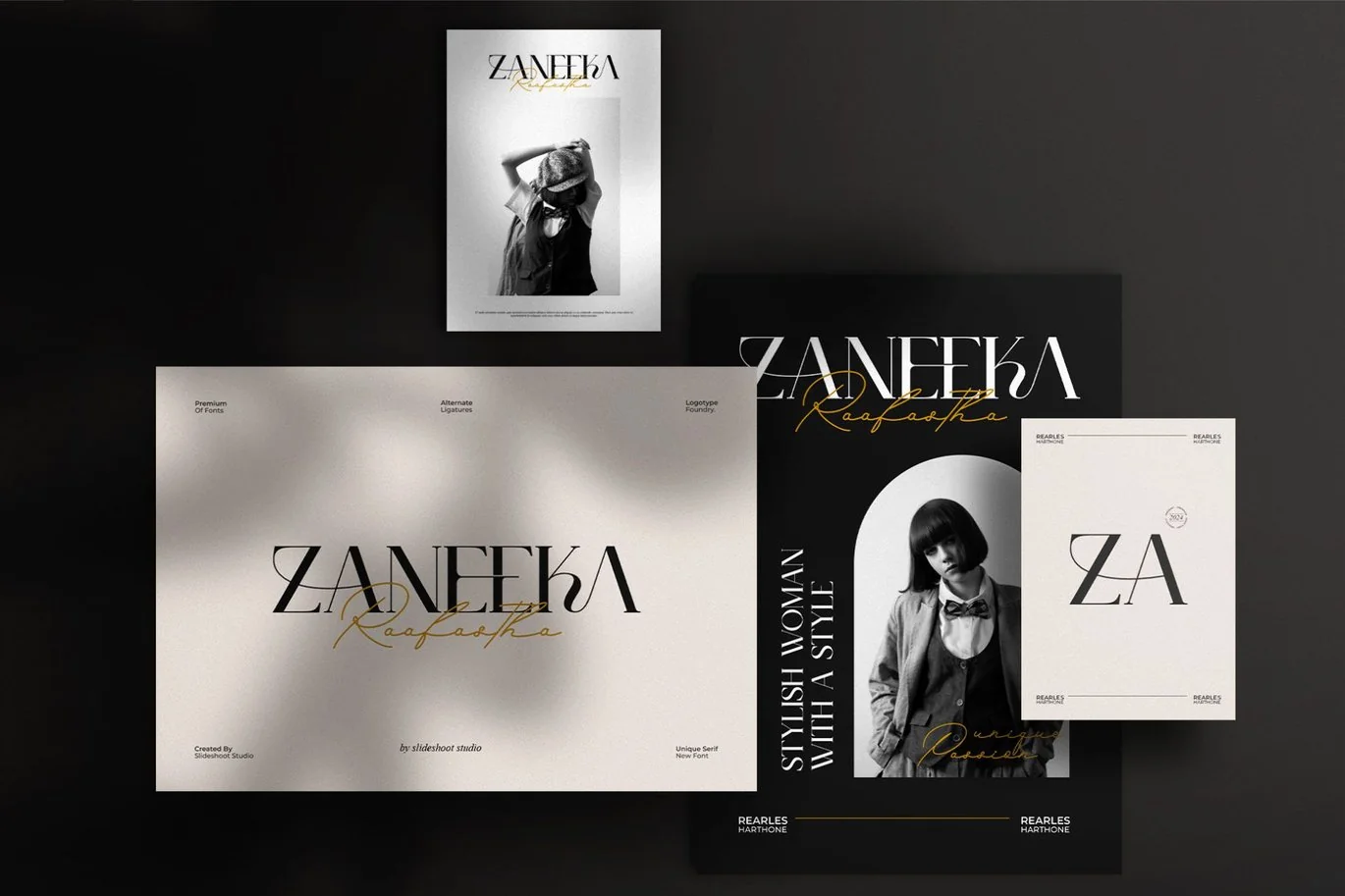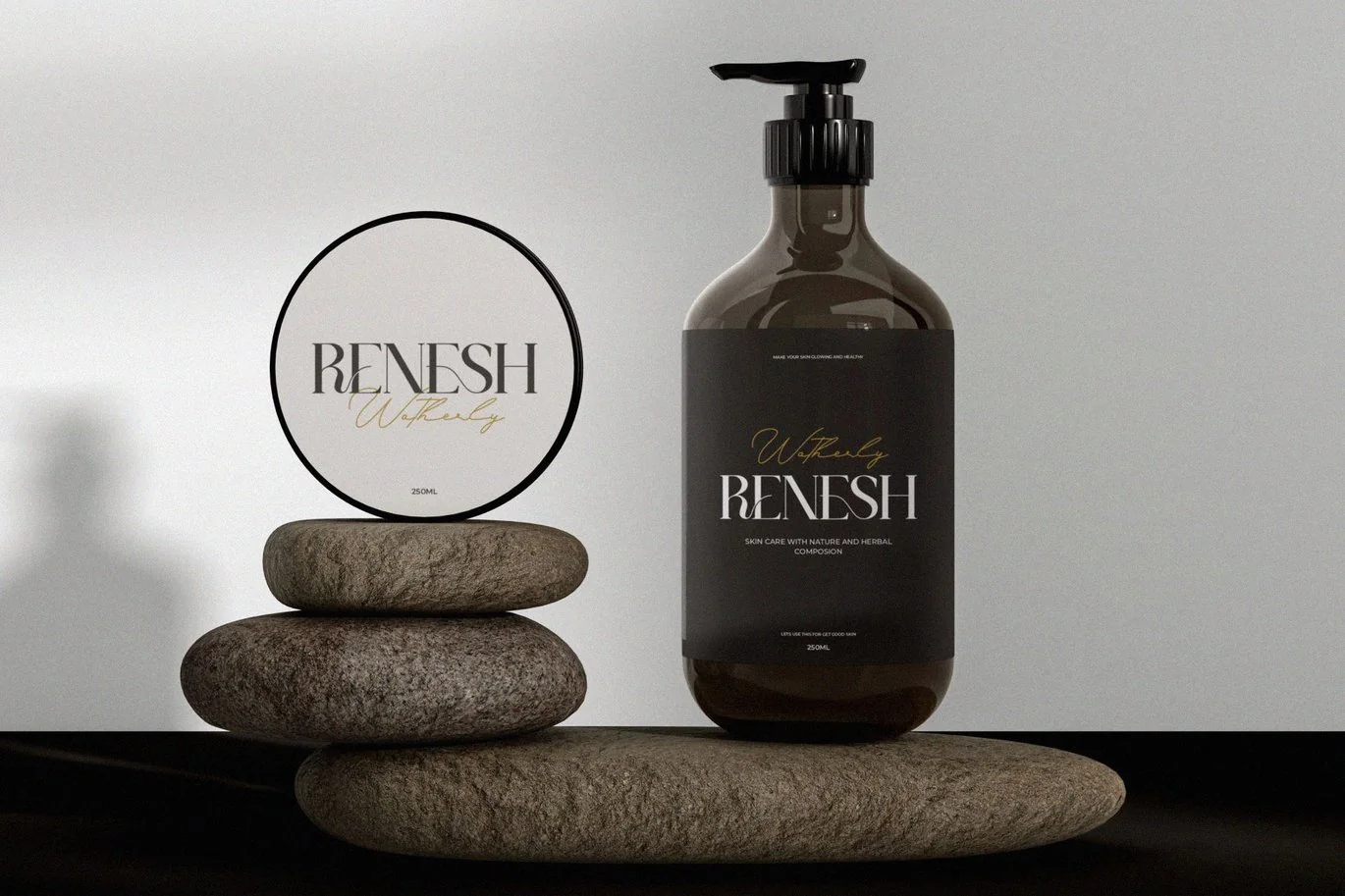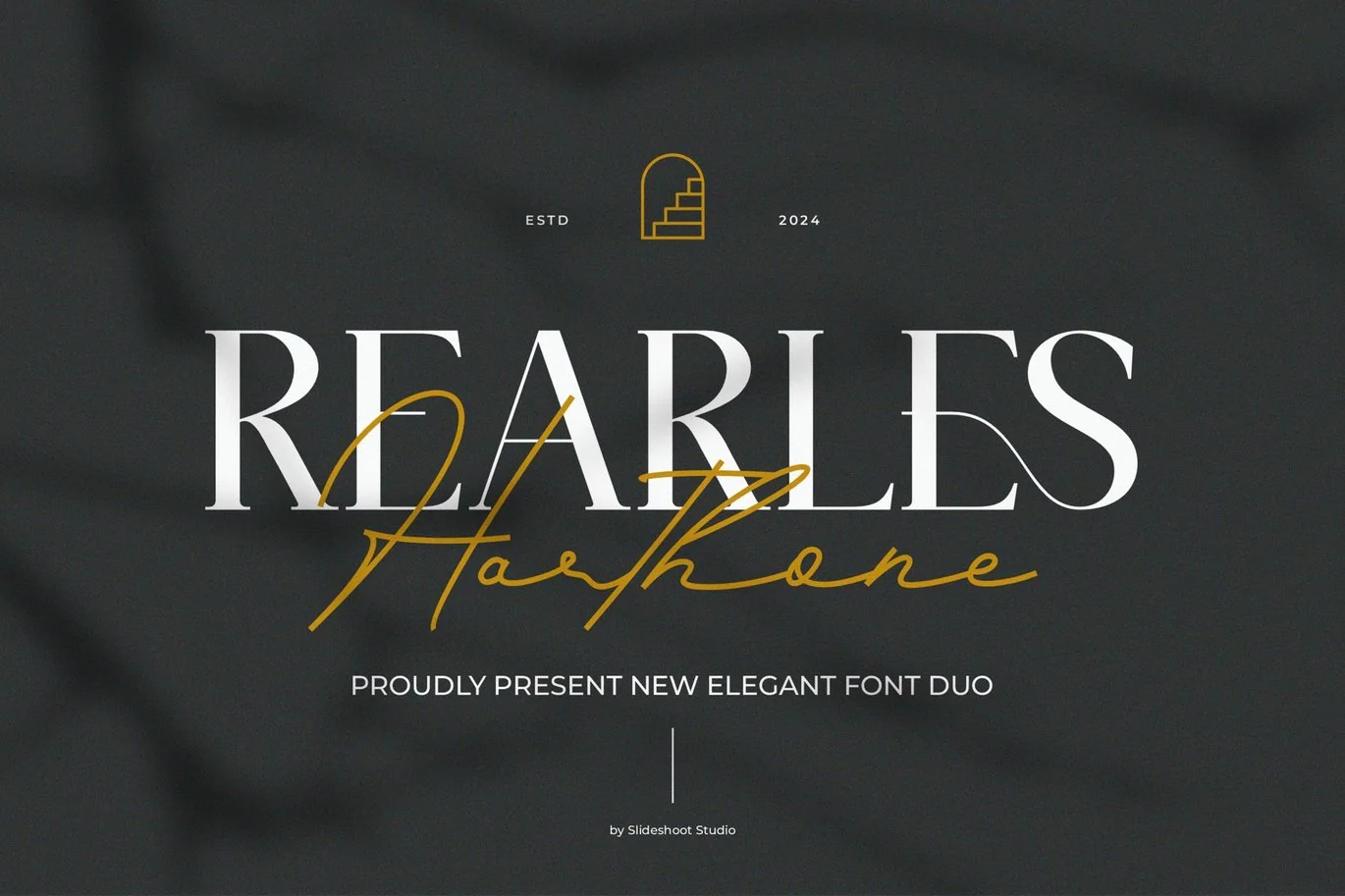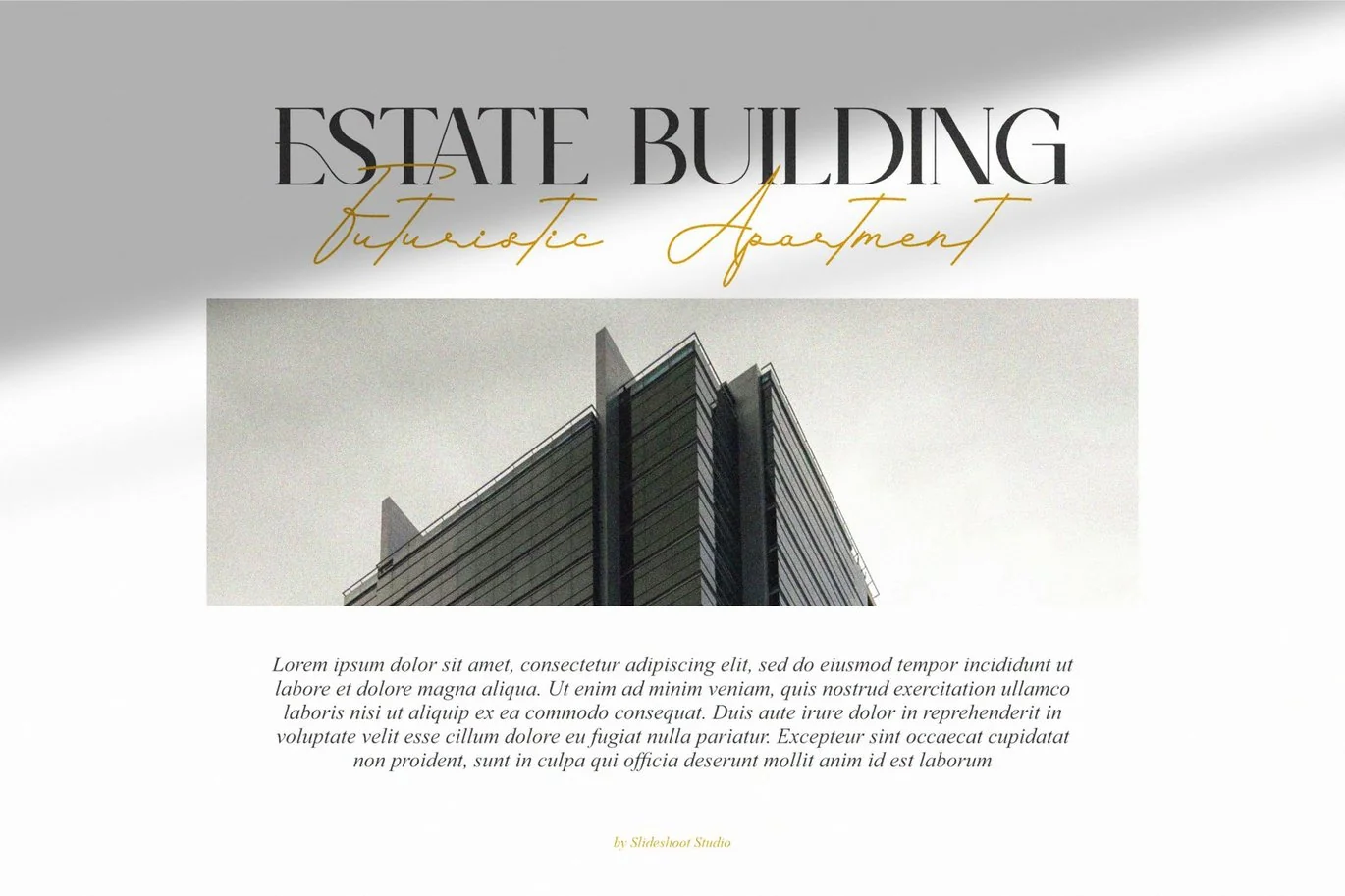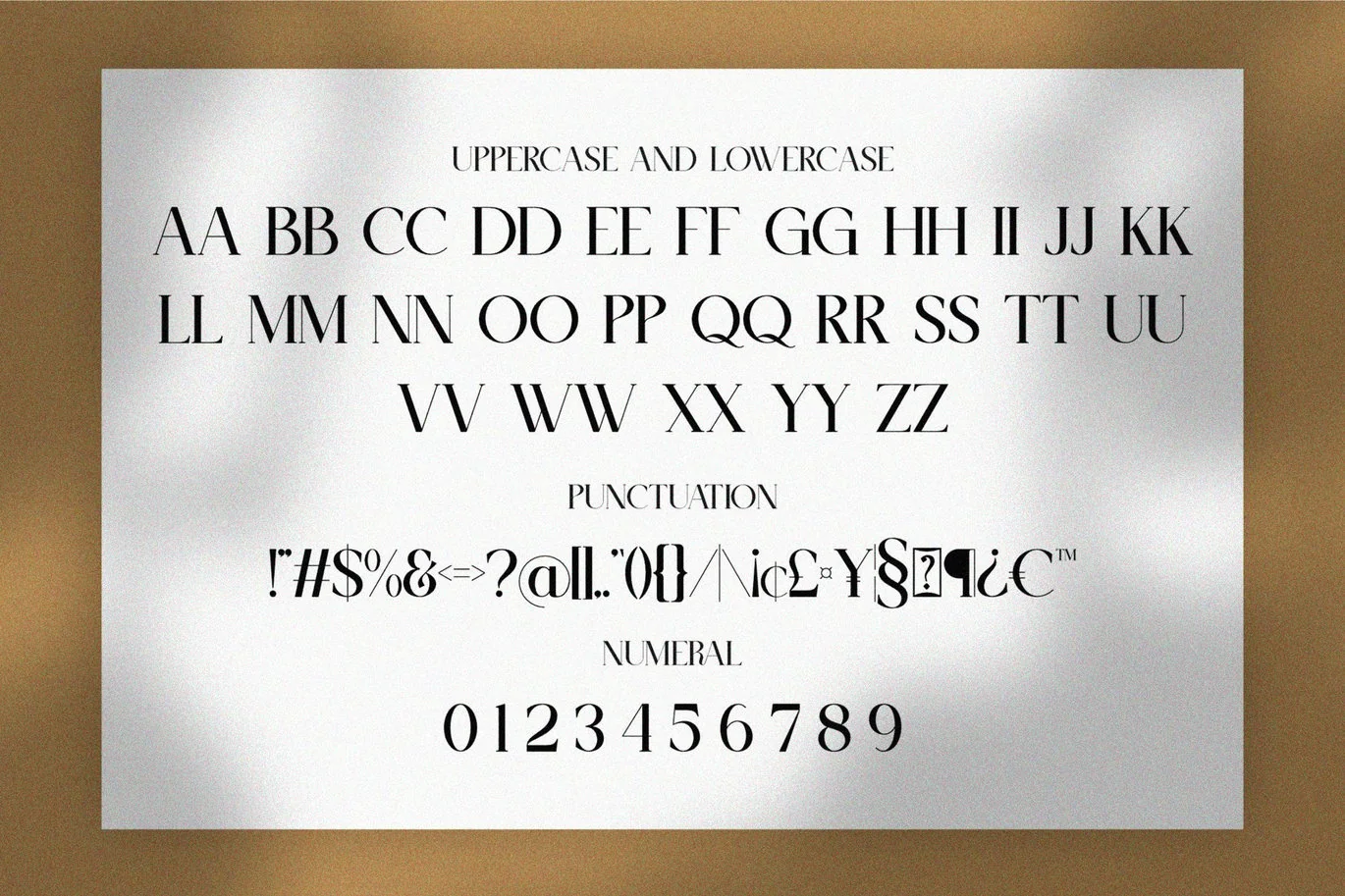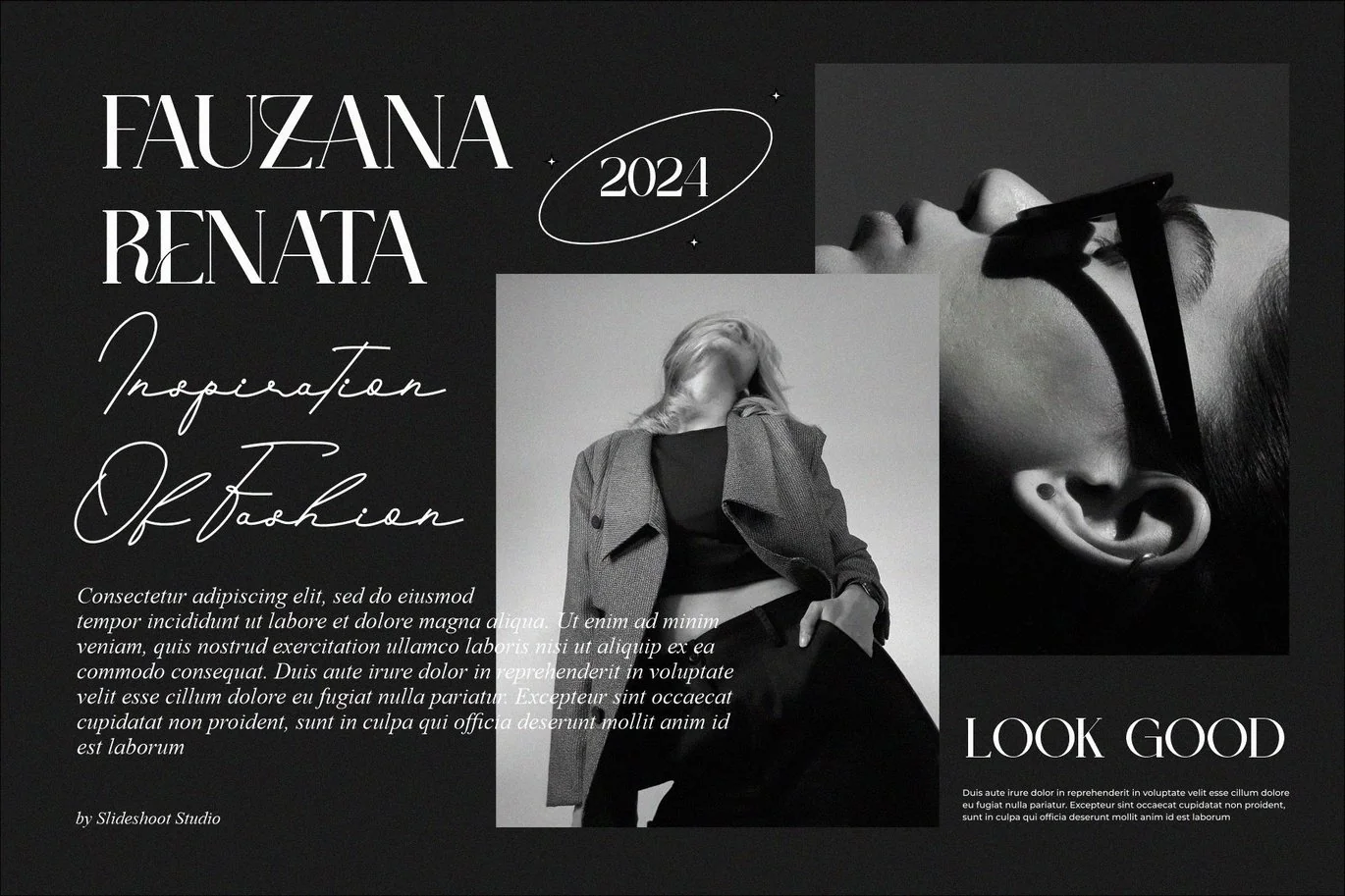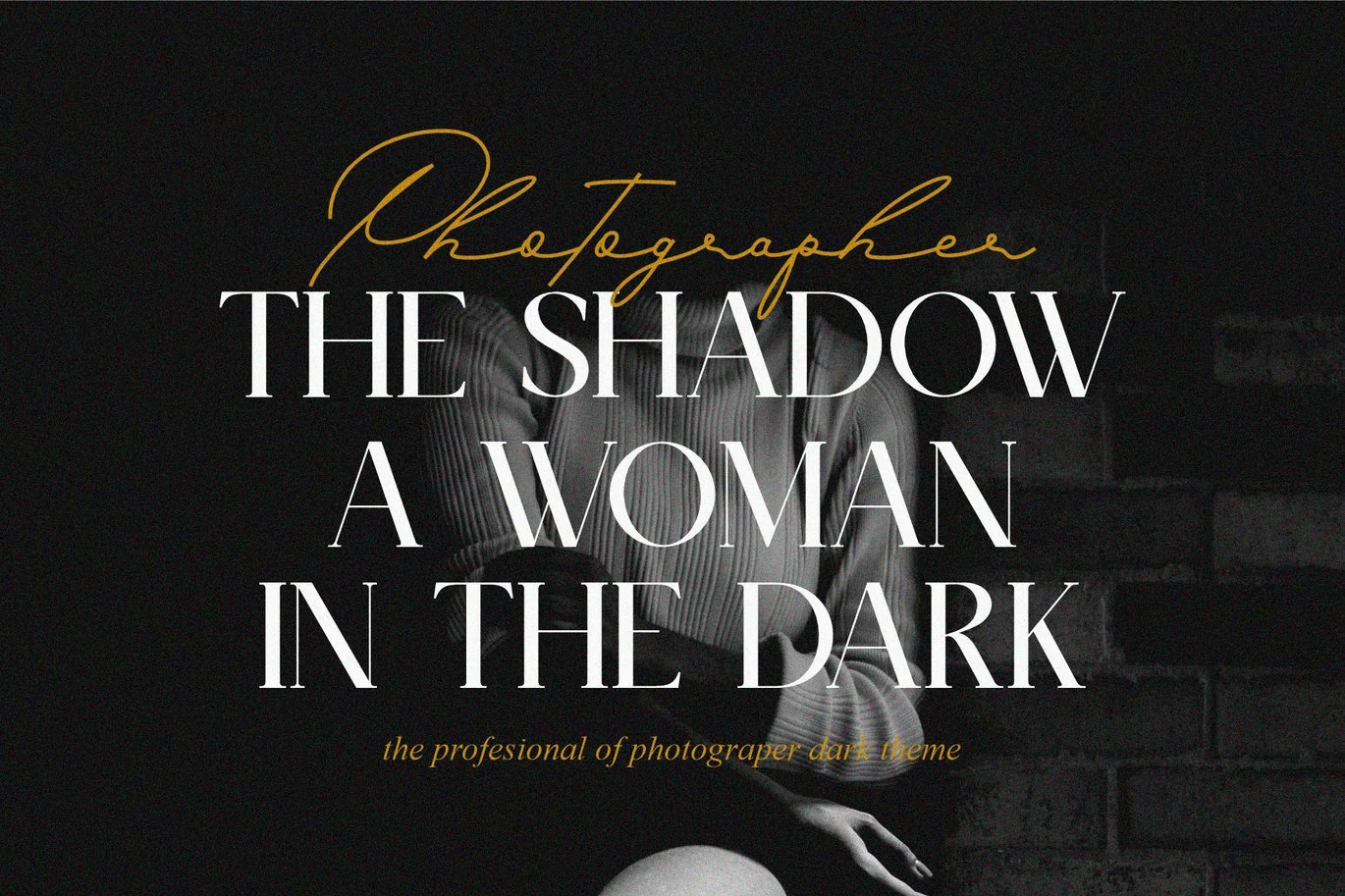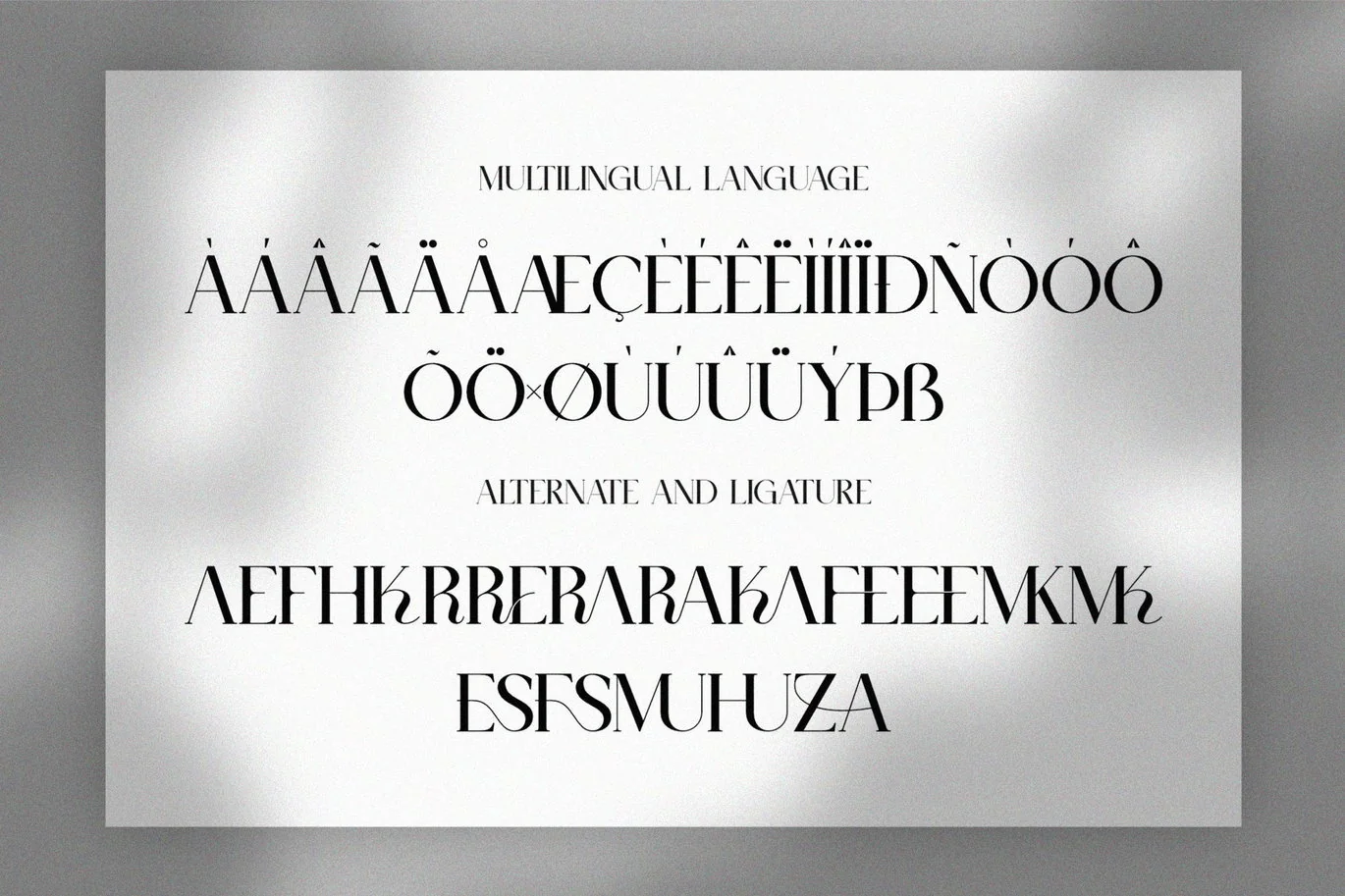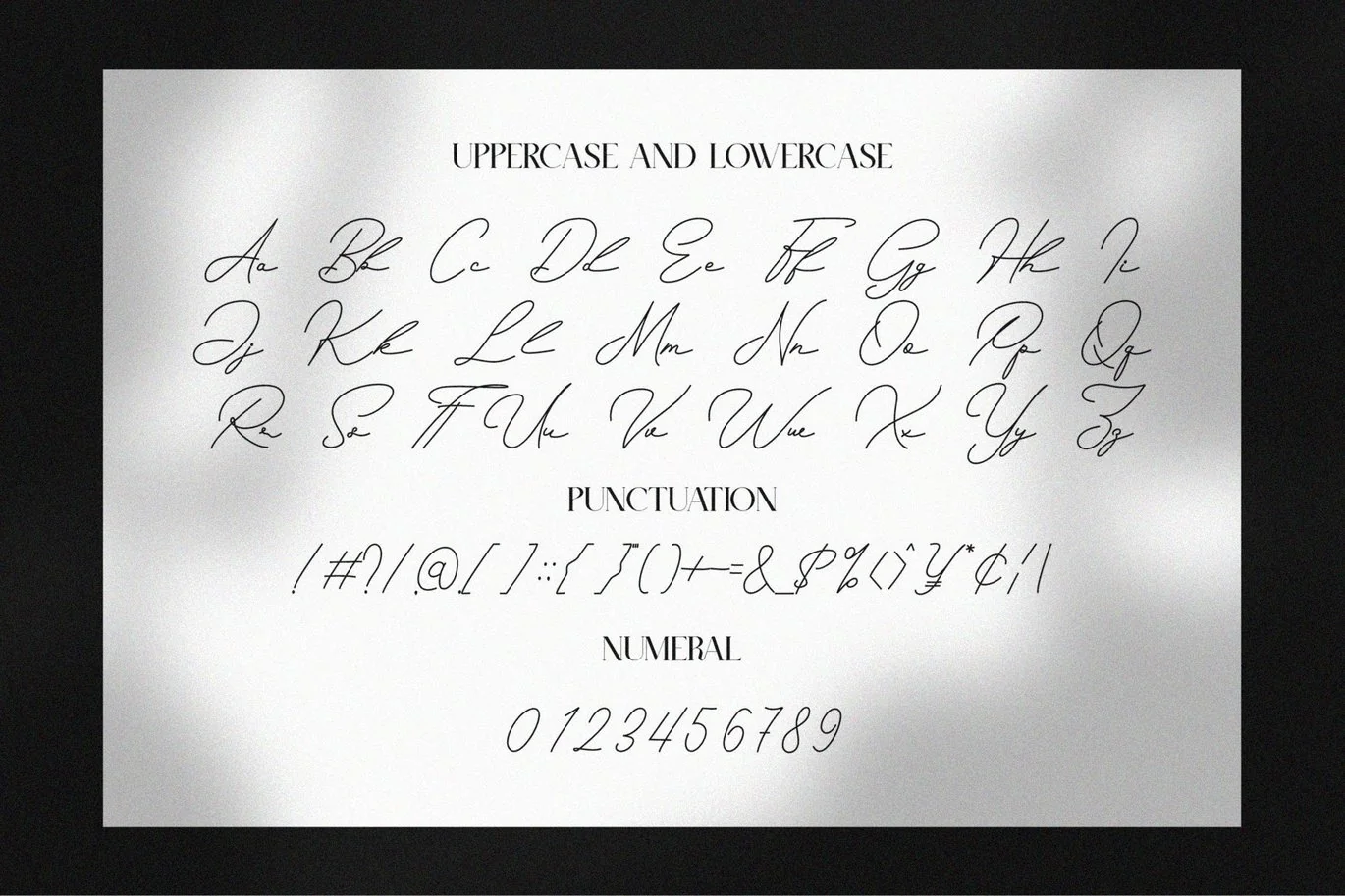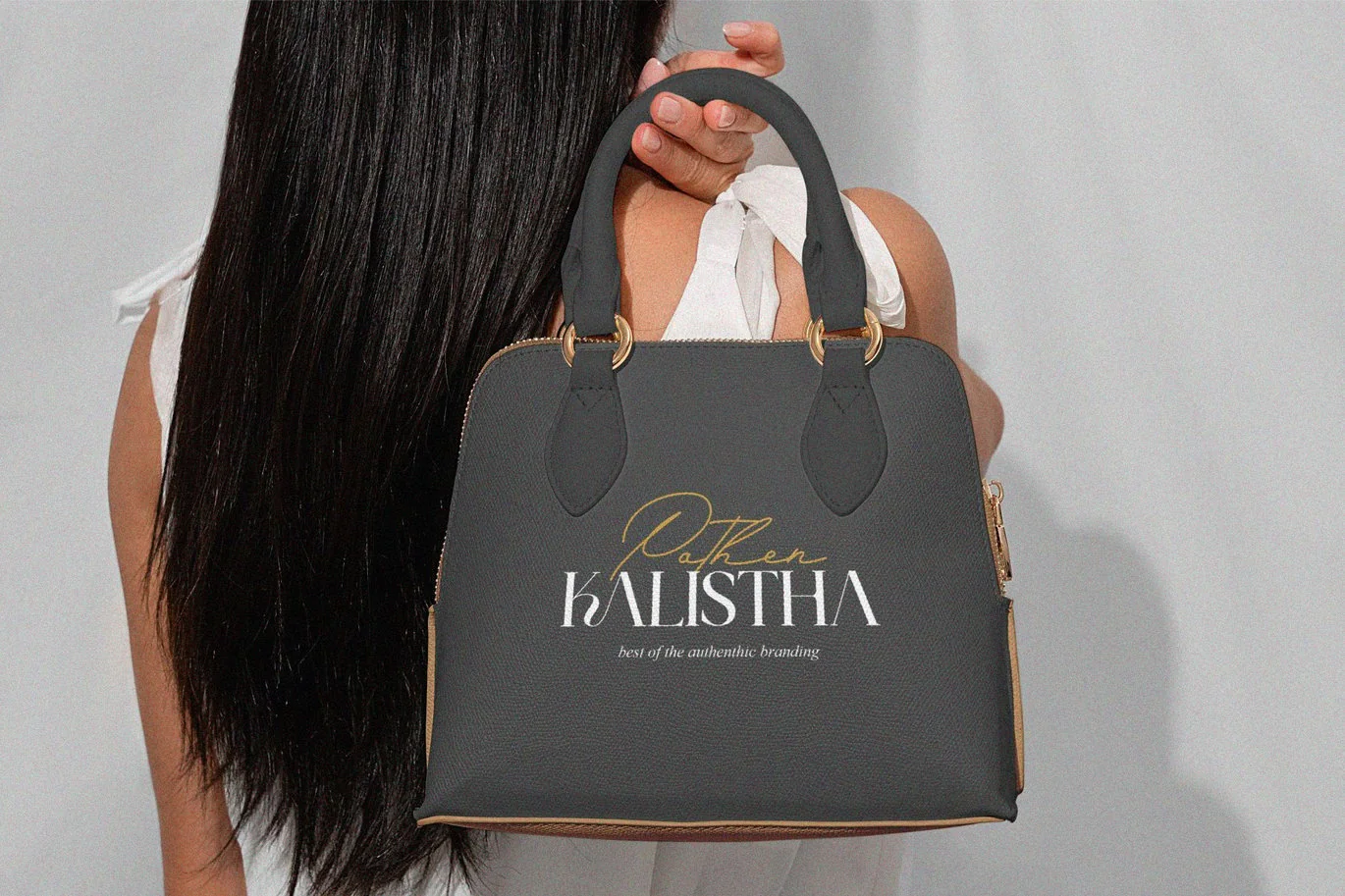
Rearles Harthone || Elegant Font Duo
Rearles Harthone is a classy duo font that includes modern serifs and scripts, which are perfect for using together in your designs. Can be used for titles, logos, brands, magazines, product packaging and invitations. Its elegant, stylish, classy, graceful and modern touch with clean lines and smooth curves gives an extra touch of class to any project. Making this font the perfect partner for any project.
FEATURE
- Uppercase and lowercase
- Numbering and Punctuation